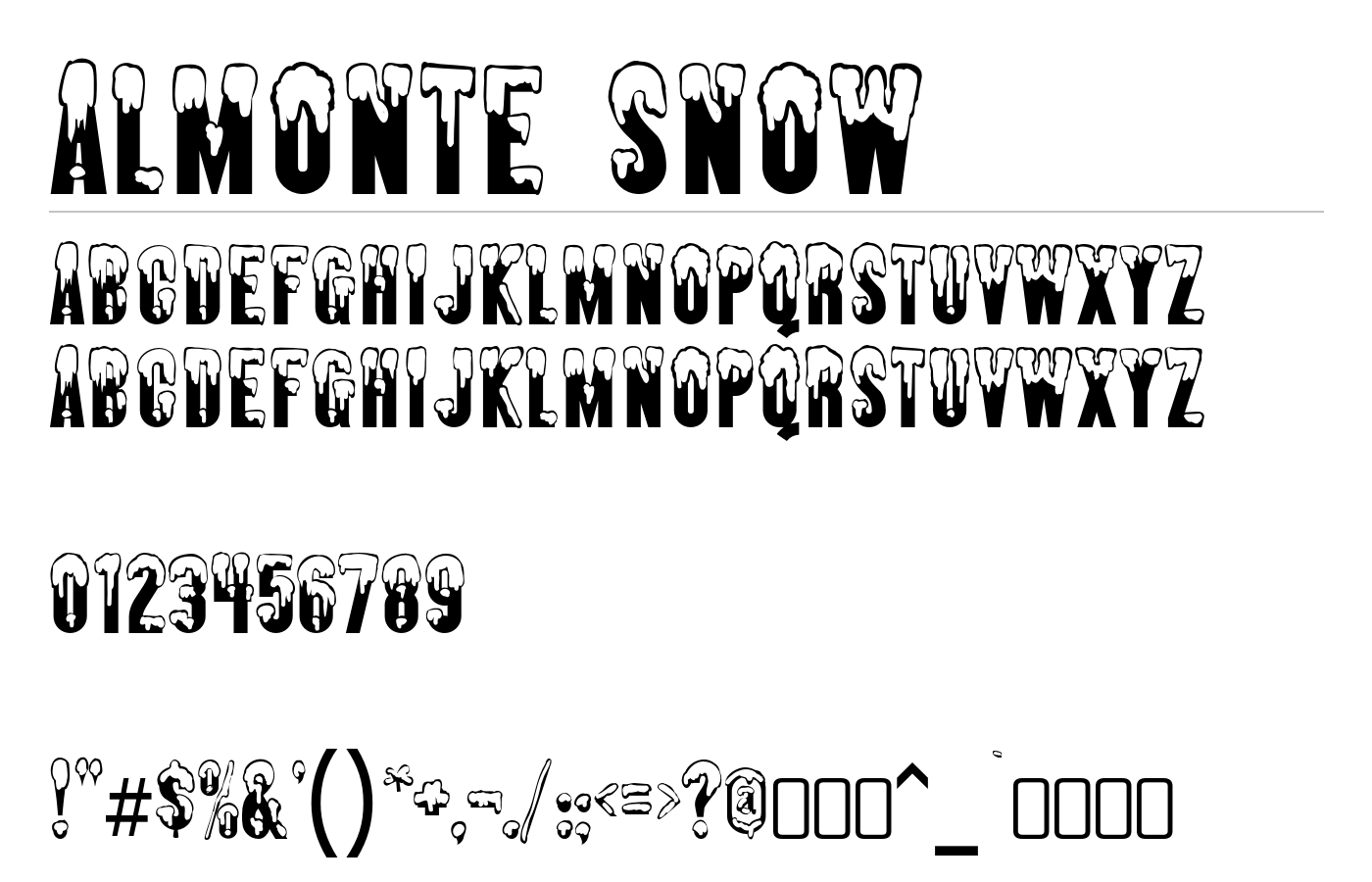
Almonte Snow is a bold, playful display font with a condensed, blocky structure topped by whimsical snow-like drips, giving it a festive and fun character. Its high contrast between solid black letterforms and the melting white accents makes it perfect for eye-catching headlines, seasonal branding, or holiday-themed designs where a cheerful, wintry vibe is desired. This font works best in creative projects looking to evoke a lighthearted, winter-inspired atmosphere.
Almonte Font
About Almonte Font